The best new typefaces for April 2026
These typeface releases are grounded in history, built with purpose, and in no mood to be forgettable.
Boxal by The Northern Block
April, then. The days are longer, and the light is better, although the world remains, broadly speaking, a mess. In that context, it's pleasing that this month's type releases feel unusually anchored. In craft traditions, in historical sources, in the quiet discipline of making something well and making it last.
The past is doing significant work here. Matthew Carter revisits a Dwiggins Scotch Roman originally adapted for Time magazine. Richard Lipton draws on Dwiggins' hand-lettered book designs. Kyiv Type Foundry recovers lettering from its city's own Metro stations. Midwest Type finds inspiration in Victorian-stencilled machinery from rural Ohio.
Alongside these archival retrievals, a different energy is also present. Maximiliano Sproviero presents a script born from a vintage pinball machine. Mark Davis builds a variable font around an axis no one thought to name before. And In-House International arrives from Austin with a typeface that cuts through in more ways than one.
1. KTF Roman by Yevgen Anfalov and Anna Kovalenko
Kyiv Type Foundry's KTF Roman revives the lettering installed in the Ukrainian capital's Metro stations during the 1960s—cast-metal forms designed by an architect whose name was never recorded. It is dedicated, explicitly and movingly, to that unknown maker.
Working from archival technical drawings and period photographs, the font's two designers translated the original flat forms into a full type family of five styles. Each reveals the same letterforms differently. Outline lays bare their structural logic; BlackWhite divides each letter into illuminated and shadowed planes; Shadow presents solid forms with sharp cast shadows; and Colour—the foundry's first colour font—applies vibrant contrasts to create what the designers describe as a patchwork-like play of surfaces.
An extensive ligature set, inspired by engraved memorial plaques and architectural inscriptions, completes this act of typographic recovery, which doubles as a small piece of cultural preservation.
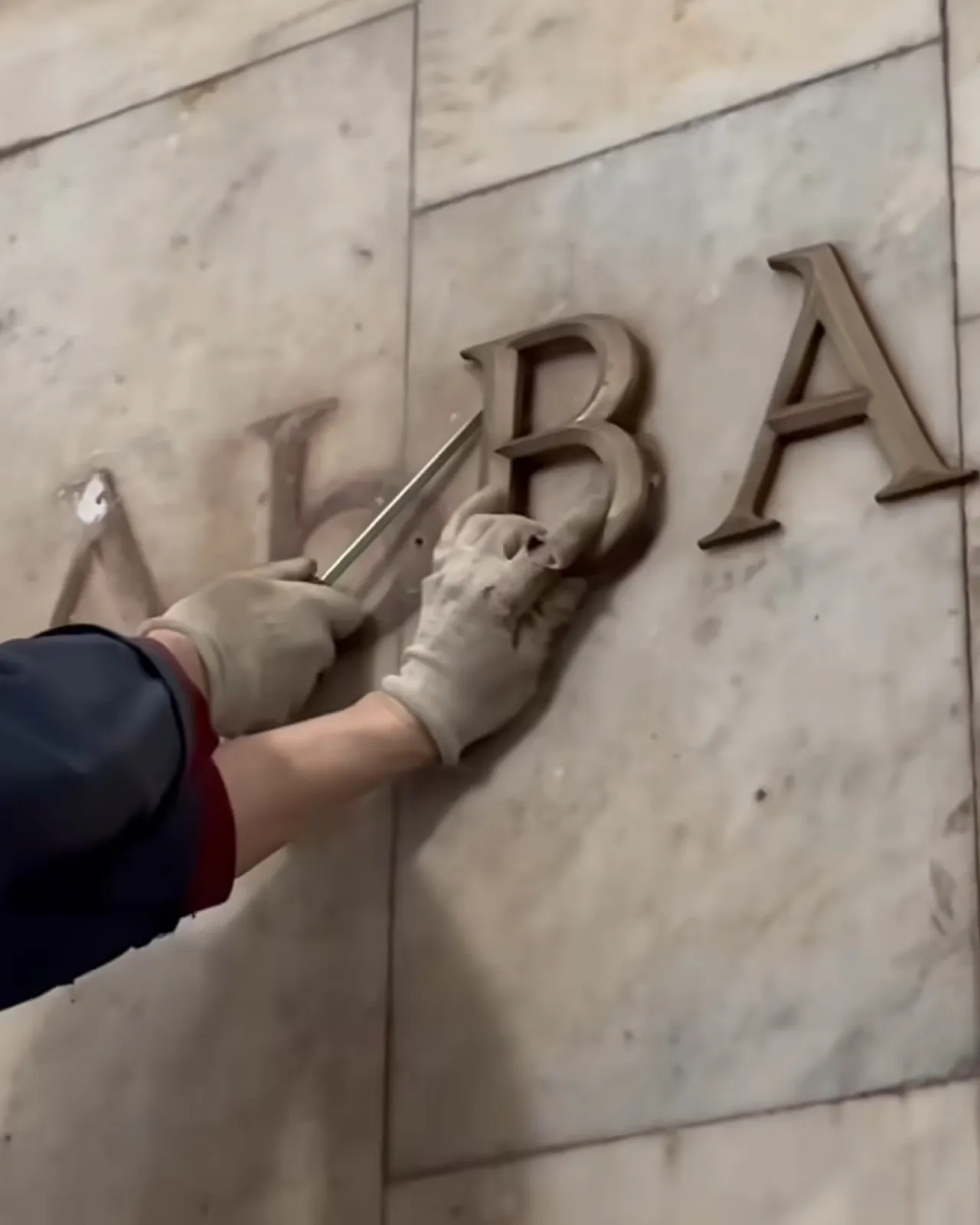
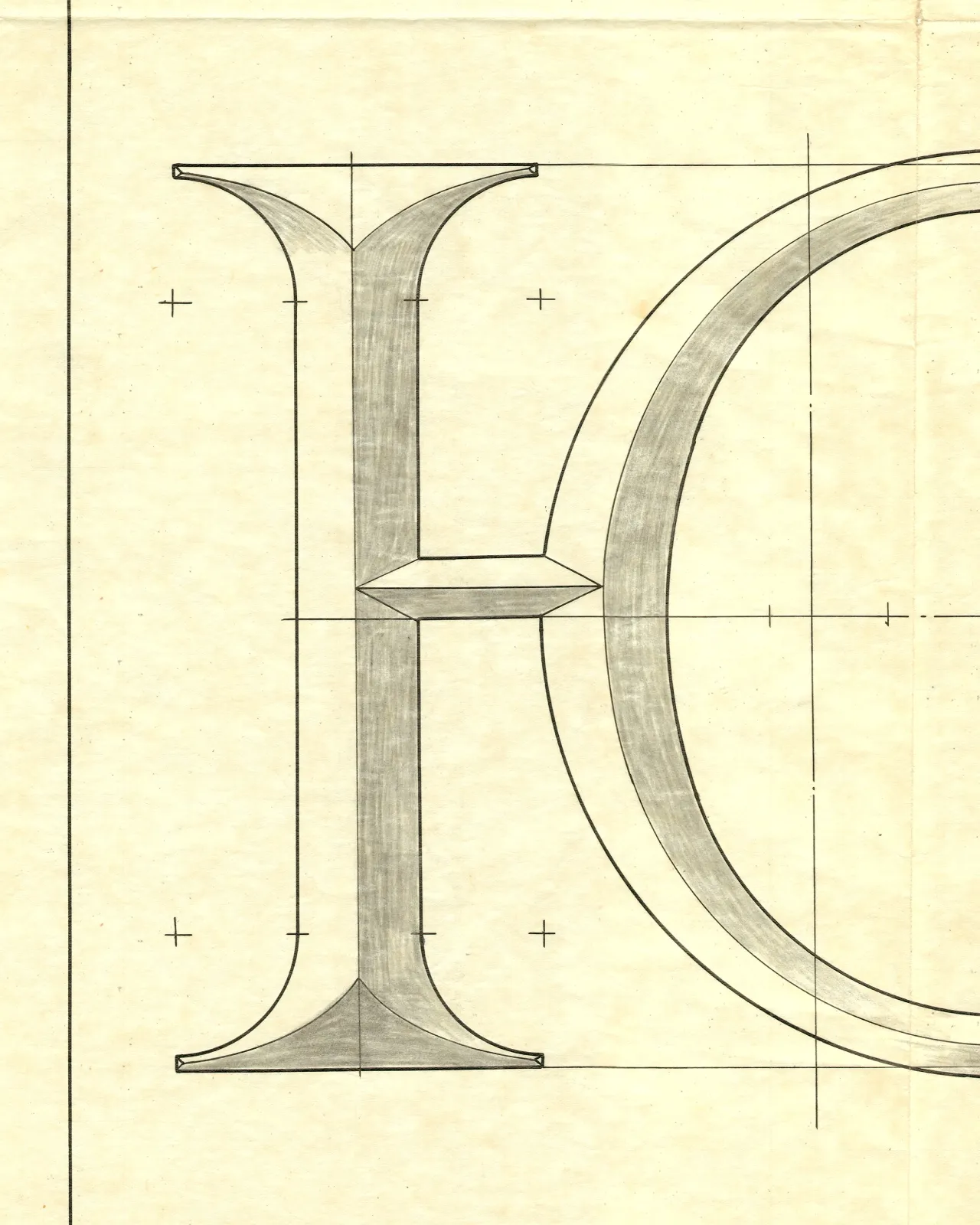
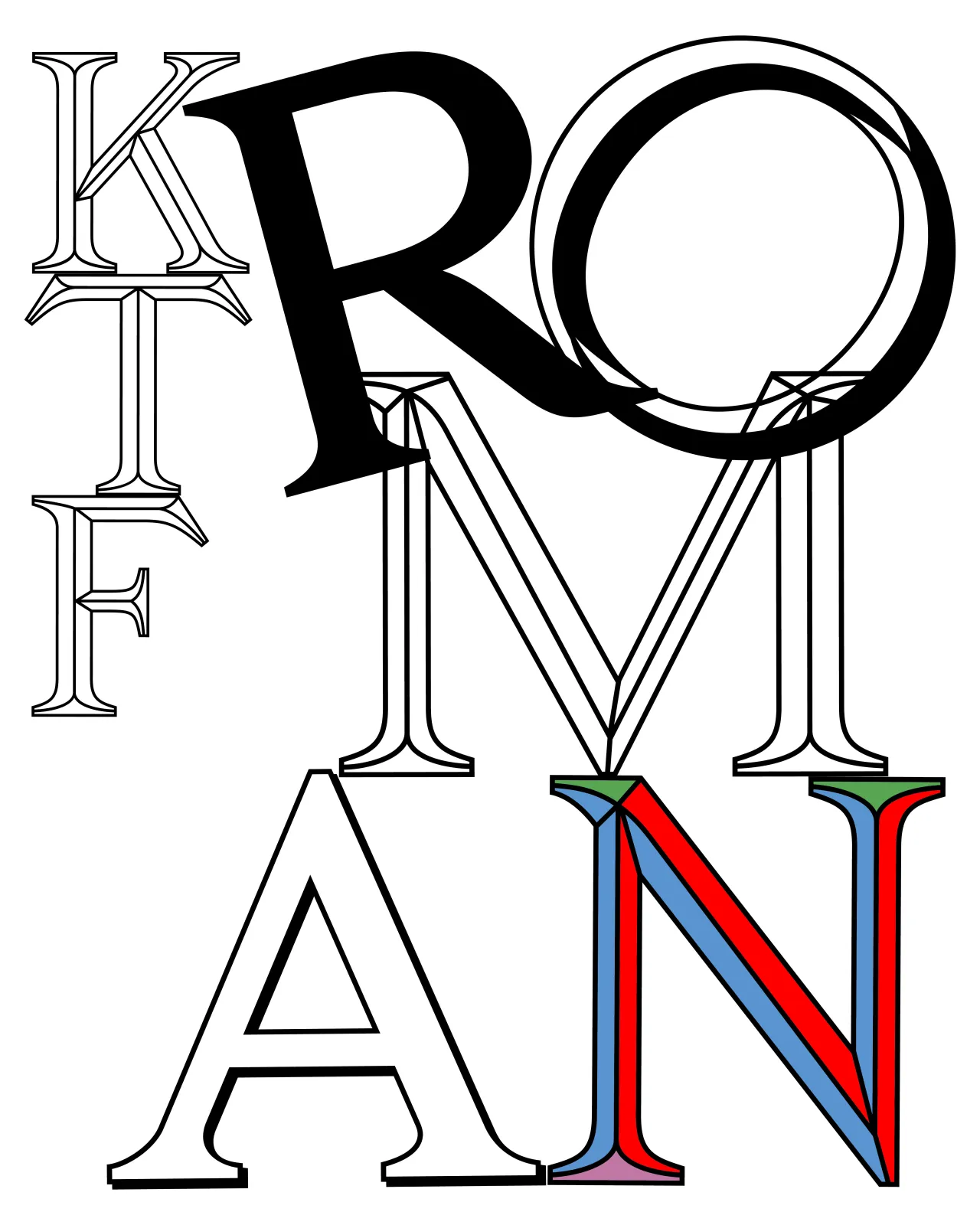
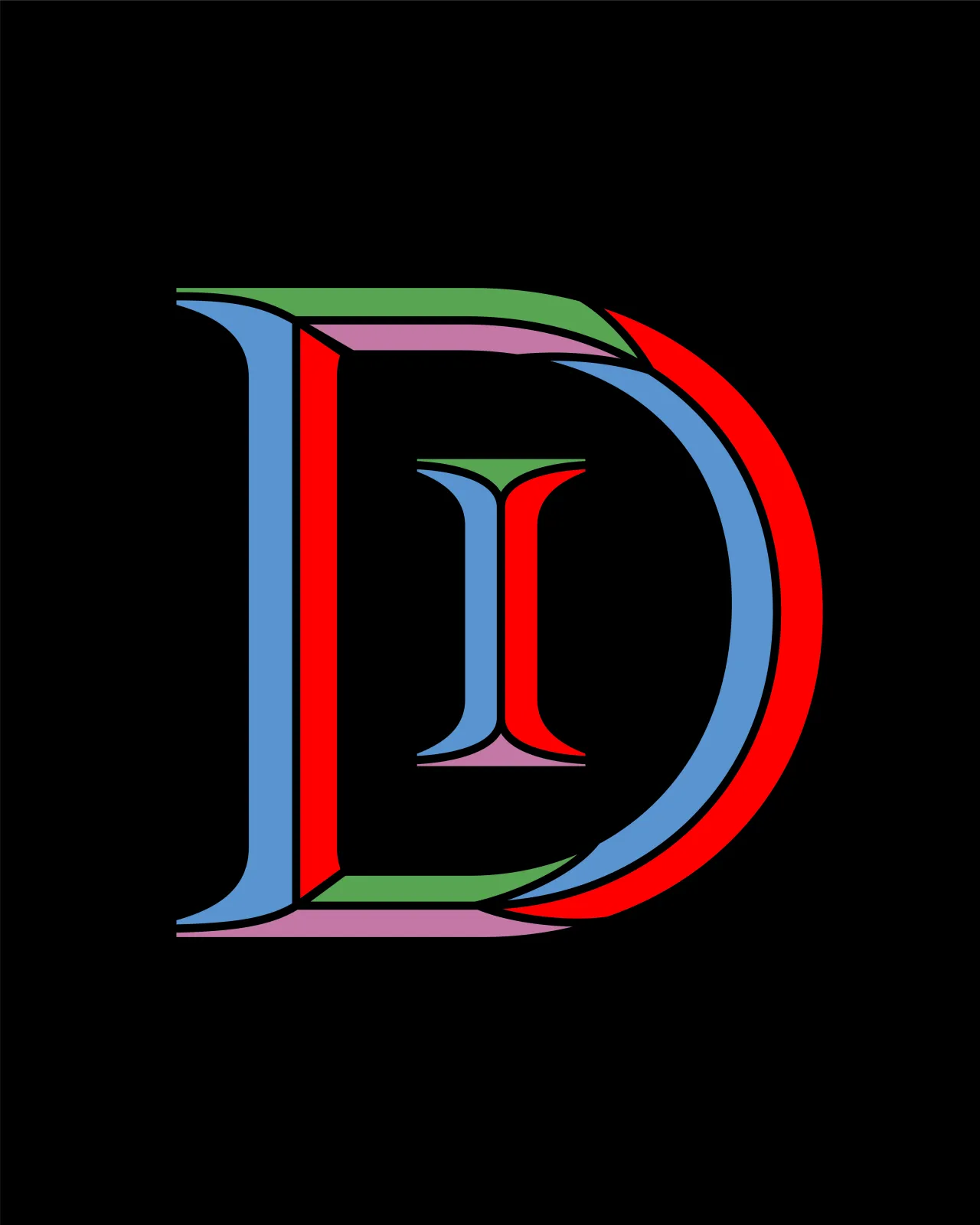
2. Caledonia CC by Matthew Carter
Matthew Carter's rendition of Dwiggins' Caledonia was originally adapted for Time magazine from Linotype's 9-point drawings, and that editorial provenance shapes everything about its performance. Four optical sizes (Display, Headline, Subhead and Text) preserve the refined details, sturdy rhythm and typographic clarity that made the original so effective across decades of magazine publishing.
Available in Regular and Italic, Caledonia CC is perhaps the most technically conservative release on this list, and all the better for it. There is a certain confidence required to release a typeface that asks nothing of the reader and places craft entirely in service of legibility. Carter & Cone earns that confidence through pedigree, precision, and a thorough understanding of what Dwiggins achieved and why it still matters.
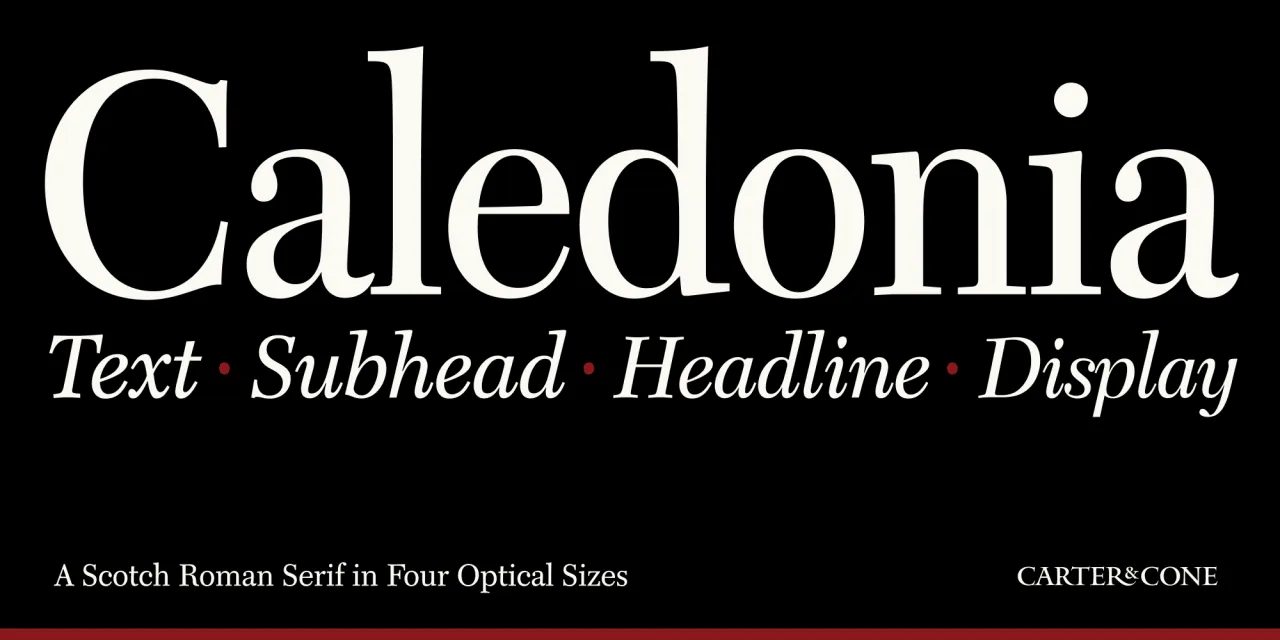
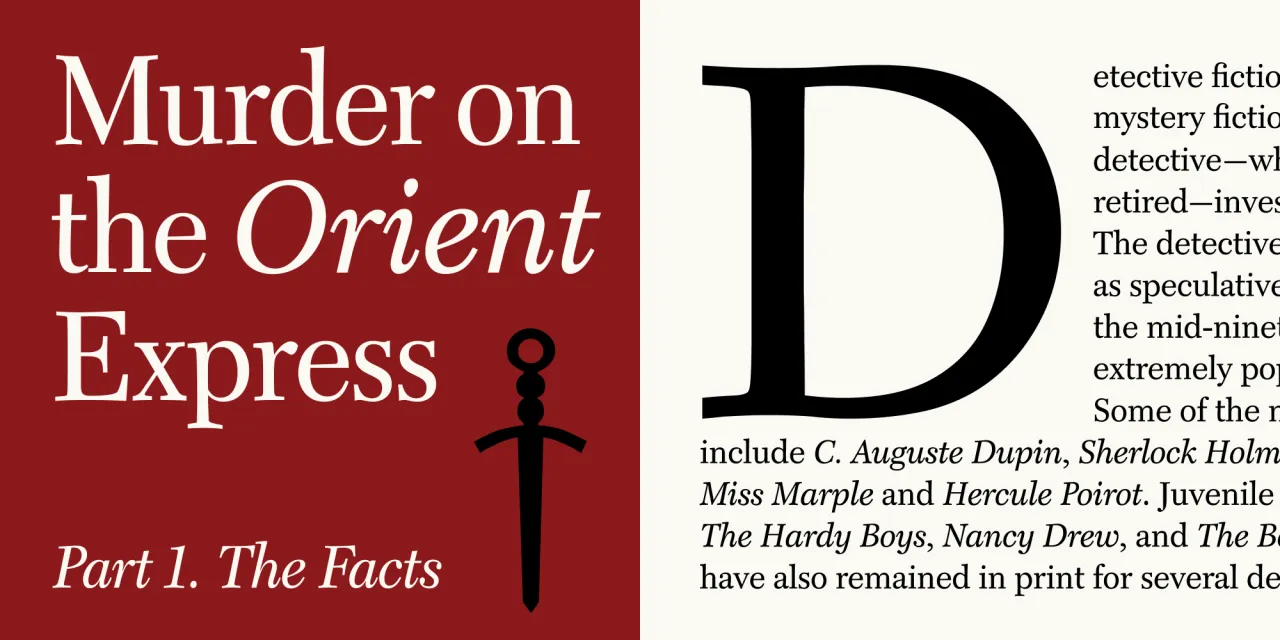
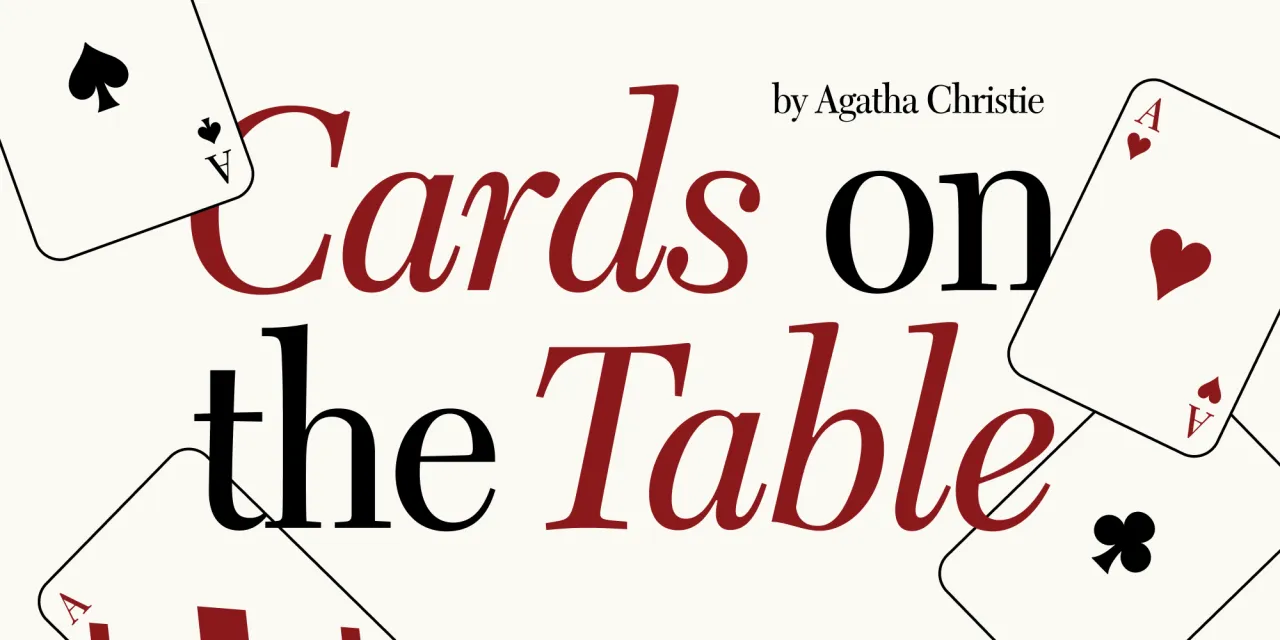
3. Boundt by Panca Ahmadi Hasan
Boundt arrives from Drizy Font with a clear visual proposition: bold, architectural geometry at display scale, informed by mechanical bolt-and-nut structures and the graphic language of vintage broadcast design. The mechanical metaphor gives the letterforms a coherence that purely decorative display faces often lack: a sense that the same underlying system generated them all.
The vintage broadcast influence, meanwhile, stops the design from feeling purely industrial, adding a retro warmth that softens the harder geometric edges. With multilingual support, ligatures, and both OTF and TTF formats, it's designed for strong visibility across digital media, advertising and contemporary branding.
At its best (large, in high-contrast settings), Boundt functions as something between a typeface and a graphic element.
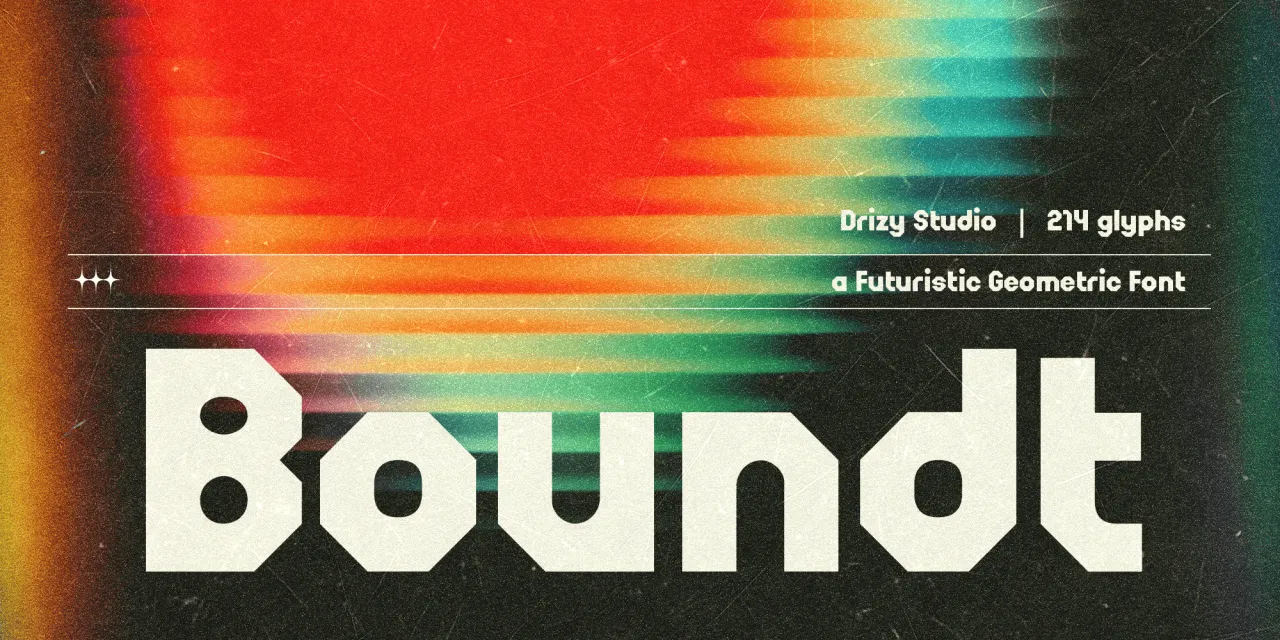
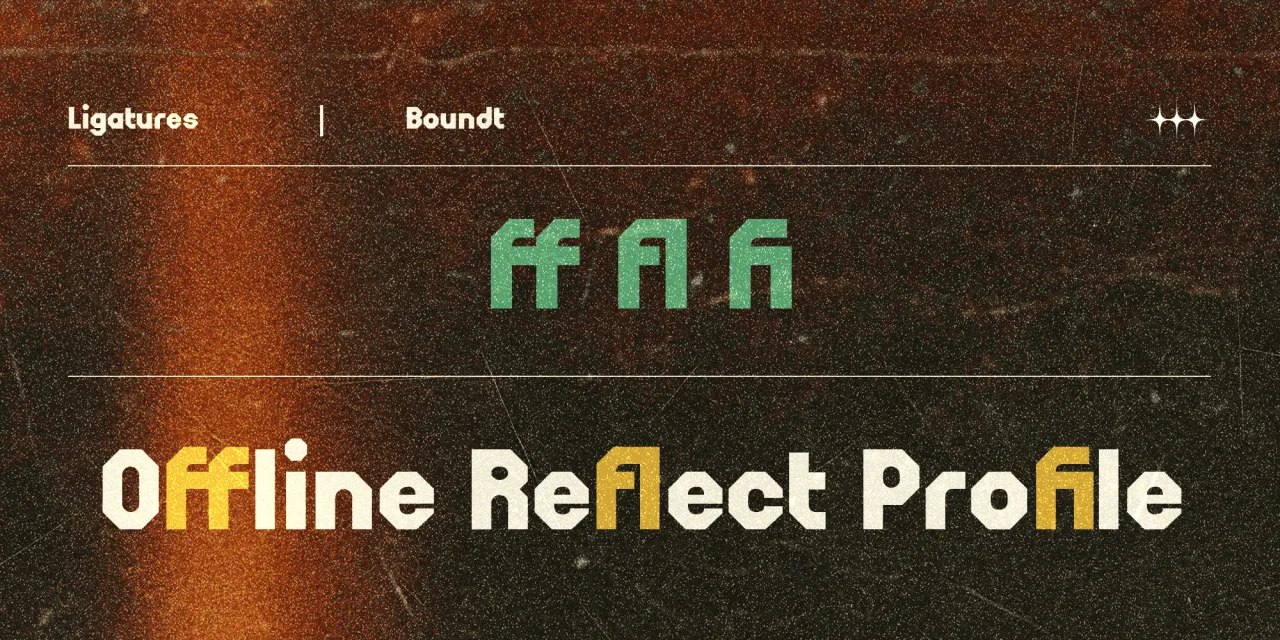
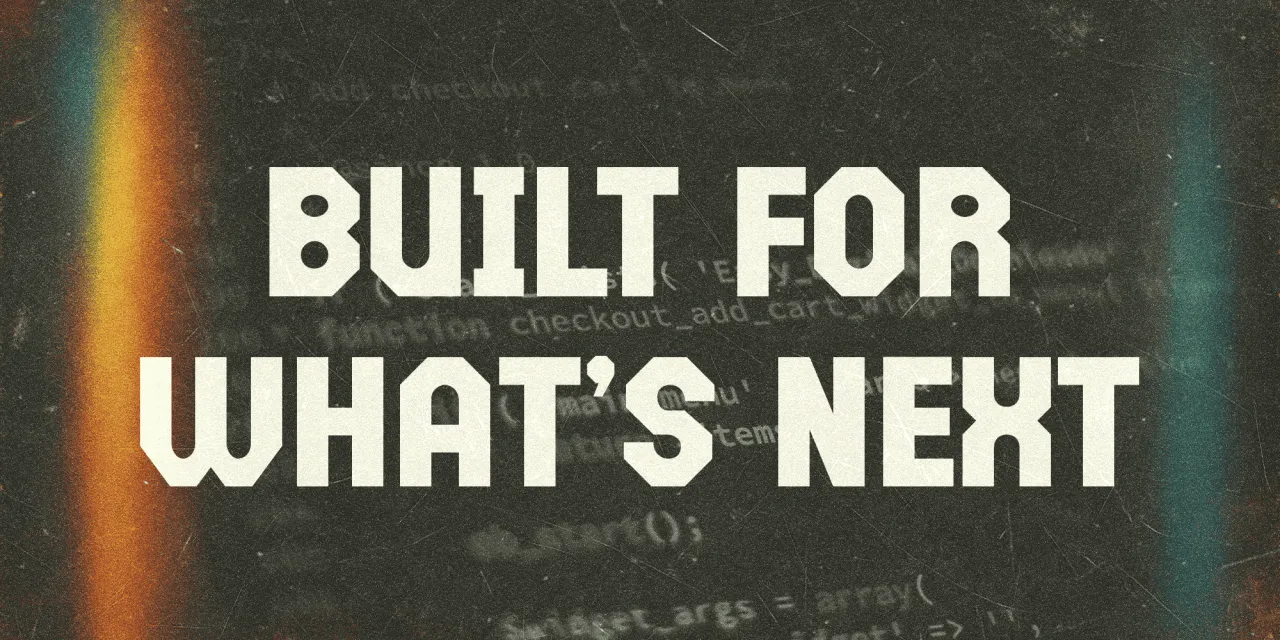
4. Reckham by Max Phillips
Max Phillips of Signal Type Foundry describes Reckham with characteristic candour. It started as a Century Expanded, intended to turn into a Clarendon as it got bolder. But the serifs came unbracketed, and the ideals of clarity had to make room for eccentric details. Then they couldn't decide on a degree of contrast, so they went with all of them. The resulting four contrast series (from near-Didone to near-Egyptian), across six weights with matching italics, produces 48 styles, with variable fonts allowing fine-tuned control over weight and contrast.
Most families achieve coherence by constraining variation; Reckham makes variation the explicit subject of the design. The result isn't what Phillips expected, but, as he puts it, "it must have been what we wanted."
5. MWT Sheller Stencil by Jesse R. Ewing
Jesse R. Ewing built Midwest Type around an archival attention to the industrial and agricultural visual culture of the American heartland, a tradition largely overlooked by type historians. Sheller Stencil originates in the stencilled lettering found on agricultural machinery from Tiffin, Ohio, in the late 19th century: anonymous commercial graphics that, on close examination, turn out to be genuinely inventive.
What sets Boxal apart from other pixel fonts is its proportional spacing, which breaks from the monospaced norm, offering greater readability and creative flexibility. It comes in five distinctive styles: Normal, Diamond, Dot, Square, and Line. Far from being nostalgic, pixel typography remains everywhere in modern life, from kitchen appliances to outer space displays, and Boxal is built to thrive in that landscape. It's a classy, playful tribute to an era of pure, uncomplicated joy. One that invites designers, gamers, and creatives alike to play, experiment, and reconnect with the pixelated wonder of the past.